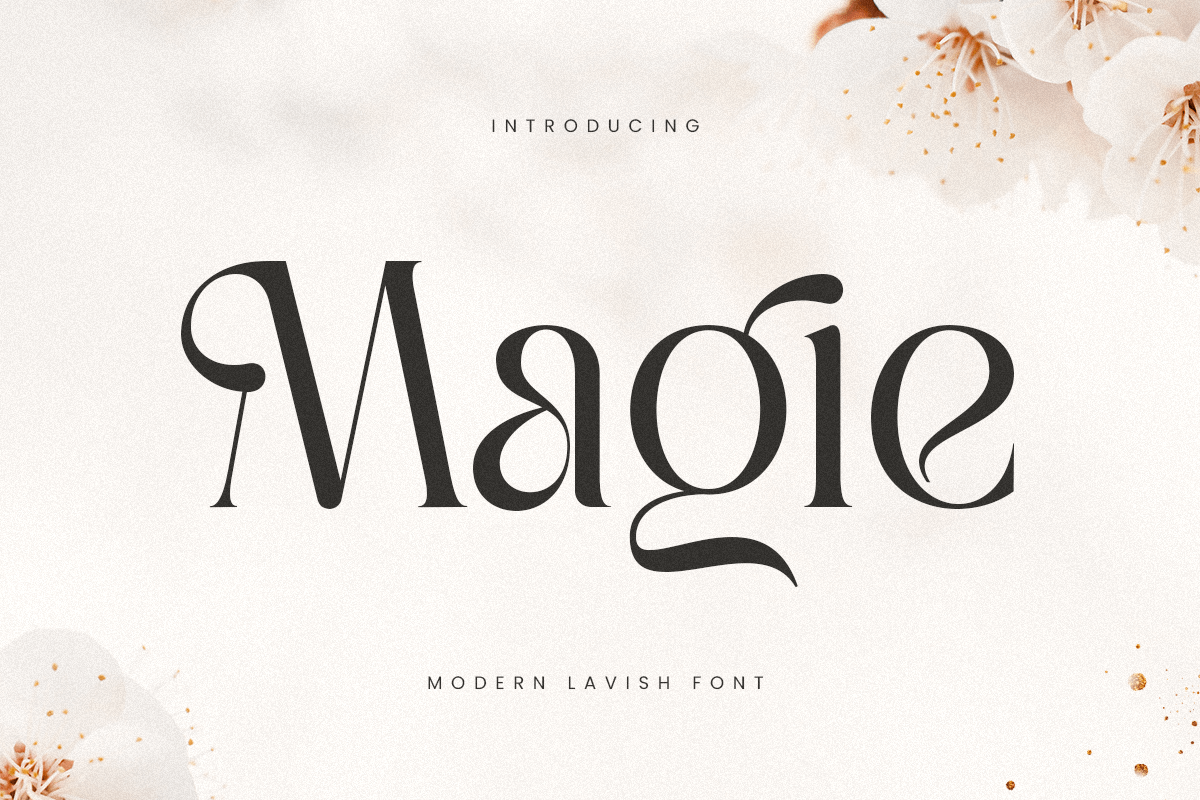
Magie
-Modern Lavish Font
Magie
Magie is a modern lavish font crafted to bring a touch of elegance and sophistication to any design. Its luxurious strokes and refined details make it a perfect choice for high-end branding, exclusive logos, and upscale editorial projects. The unique design elements of Magie add an air of exclusivity, making it ideal for those who seek to set their projects apart.
Whether designing fashion lookbooks, product packaging, or upscale marketing materials, Magie exudes confidence and style. The font's meticulously crafted characters are designed to create a sense of balance and flow, ensuring readability while maintaining its opulent feel.
Magie Modern Lavish Font Features:
• Elegant Ligature & Alternative Characters Ready
• Punctuation, Number, and Symbol